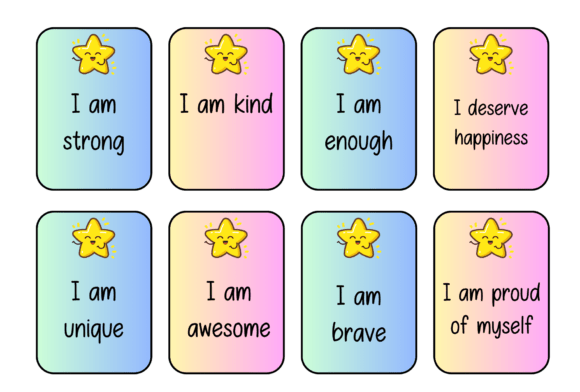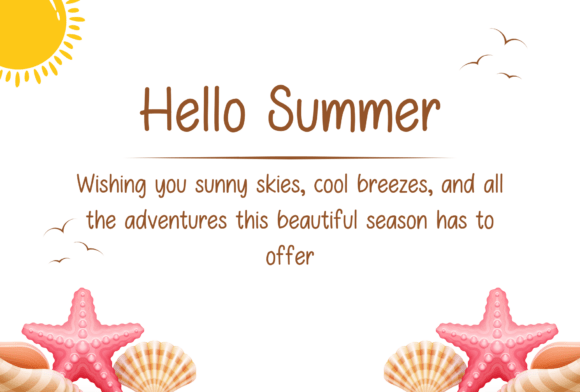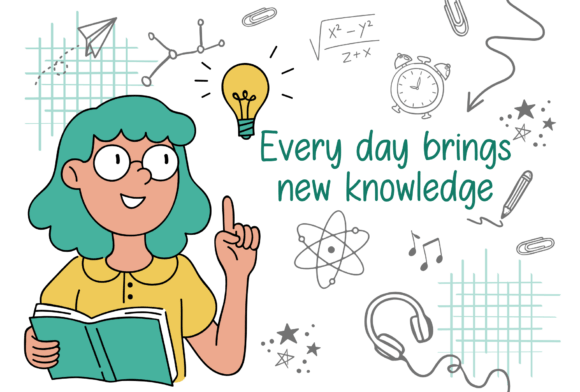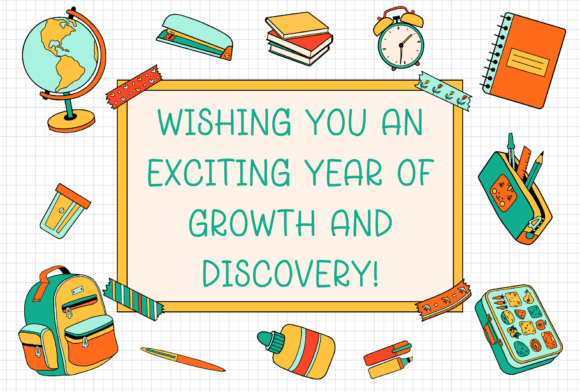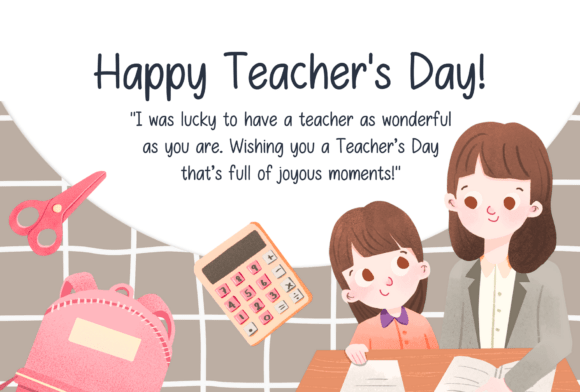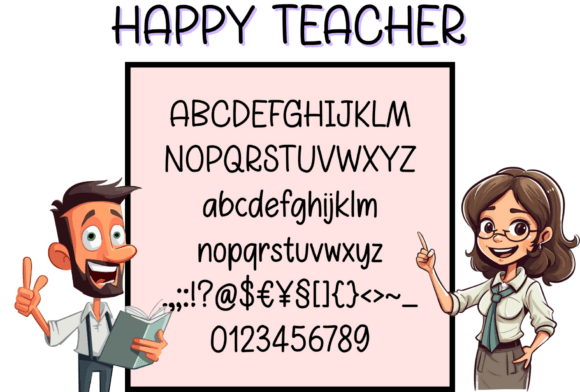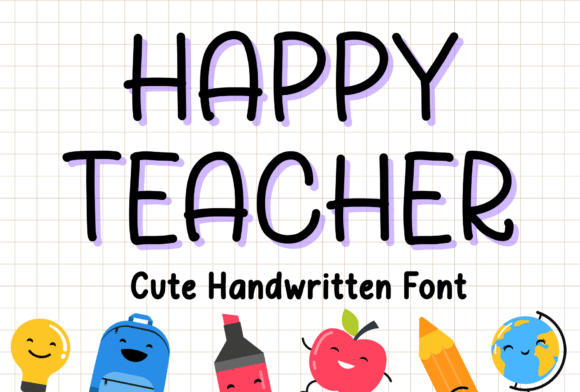
Introducing Happy Teacher Font: The Perfect Handwritten Style for Educators
Are you a teacher, educator, or designer looking for a font that can add a personal touch to your classroom materials, teacher planners, student worksheets, and educational printables? Look no further than Happy Teacher Font, a delightful handwritten font designed to bring a sense of joy and friendliness to your designs.
What is Happy Teacher Font?
Happy Teacher Font is a carefully crafted handwritten font that features smooth curves and playful letterforms, making it perfect for any project that requires a warm and approachable feel. This font is designed to mimic the look and feel of handwriting, giving your designs a personal and human touch that’s sure to engage and inspire your audience.
Key Features of Happy Teacher Font
• Smooth Curves: Happy Teacher Font features smooth, flowing curves that give it a soft and gentle appearance.
• Playful Letterforms: The font’s playful letterforms add a touch of whimsy and fun to your designs, making them perfect for educational materials and classroom resources.
• Handwritten Feel: The font’s handwritten feel makes it perfect for adding a personal touch to your designs, whether you’re creating teacher planners, student worksheets, or educational printables.
• Versatile: Happy Teacher Font is versatile and can be used for a wide range of projects, from formal educational materials to informal crafts and DIY projects.
Uses for Happy Teacher Font
Happy Teacher Font is perfect for a variety of projects, including:
• Classroom Materials: Use Happy Teacher Font to create engaging and interactive classroom materials, such as posters, charts, and worksheets.
• Teacher Planners: Add a personal touch to your teacher planner with Happy Teacher Font, making it a one-of-a-kind organizational tool.
• Student Worksheets: Create fun and interactive student worksheets with Happy Teacher Font, making learning a enjoyable experience.
• Educational Printables: Use Happy Teacher Font to create educational printables, such as activity sheets, educational posters, and more.
• Crafts and DIY Projects: Happy Teacher Font is also perfect for crafts and DIY projects, such as making handmade cards, gift tags, and other paper crafts.
Benefits of Using Happy Teacher Font
Using Happy Teacher Font in your designs offers a range of benefits, including:
• Personal Touch: Happy Teacher Font adds a personal touch to your designs, making them more engaging and relatable.
• Emotional Connection: The font’s friendly and approachable feel helps to create an emotional connection with your audience, making your designs more effective.
• Unique Style: Happy Teacher Font offers a unique and distinctive style that’s sure to set your designs apart from the rest.
In conclusion, Happy Teacher Font is a delightful handwritten font that’s perfect for educators, designers, and crafters looking to add a personal touch to their designs. With its smooth curves, playful letterforms, and handwritten feel, Happy Teacher Font is sure to bring a sense of joy and friendliness to your projects. Whether you’re creating classroom materials, teacher planners, student worksheets, or educational printables, Happy Teacher Font is the perfect choice.